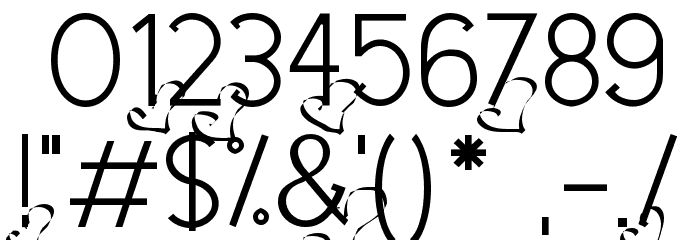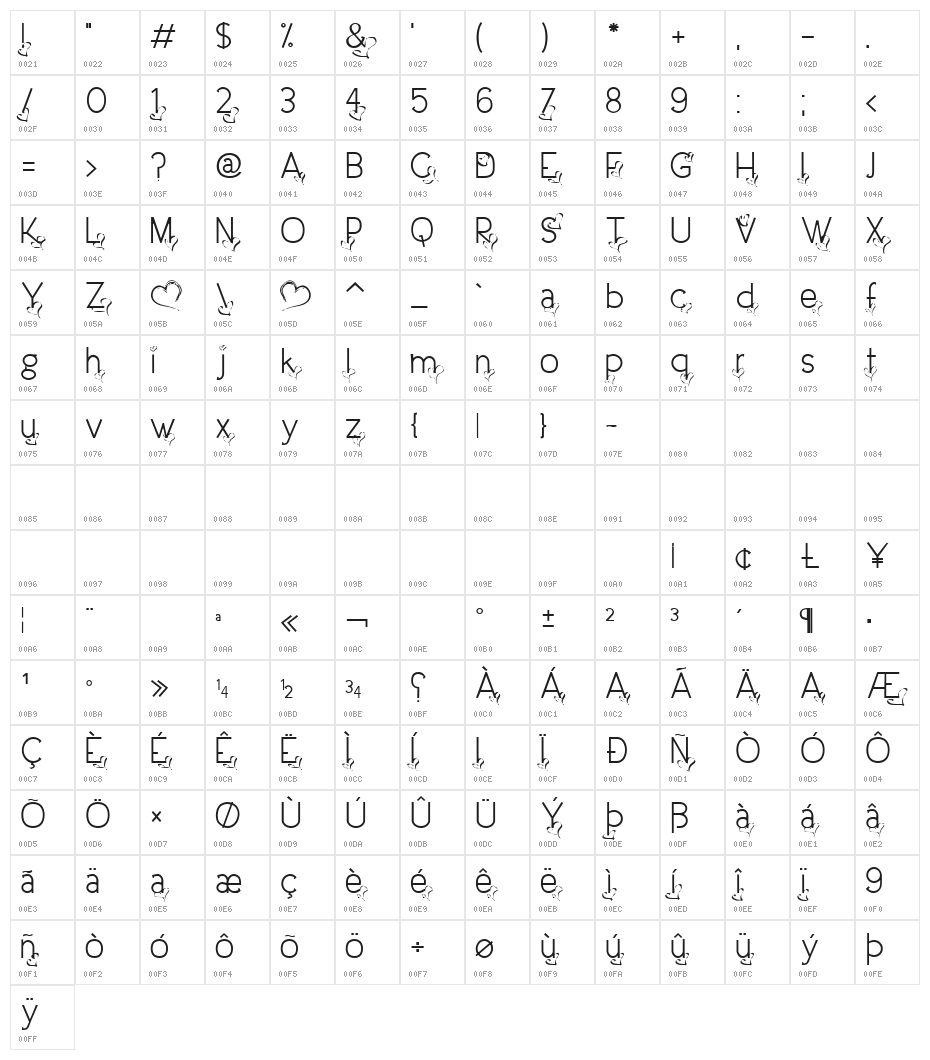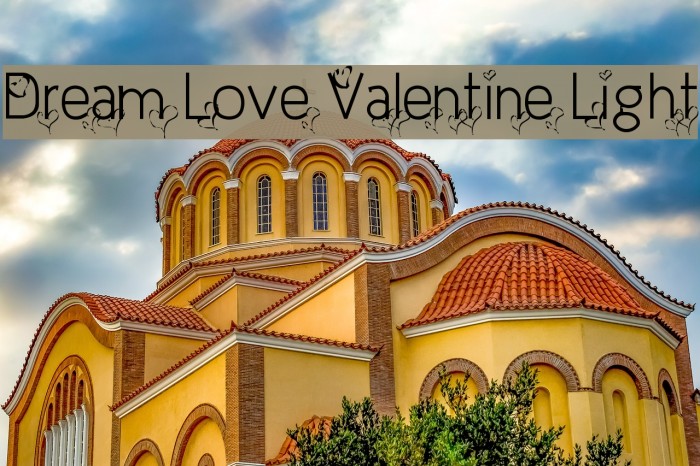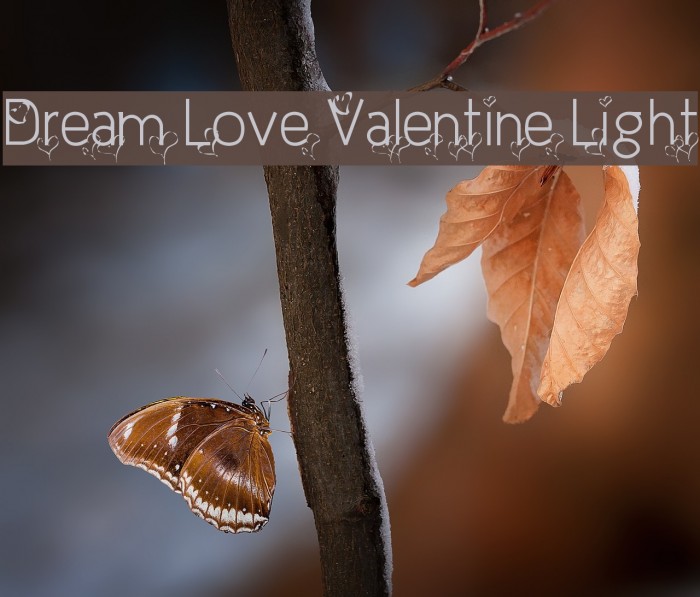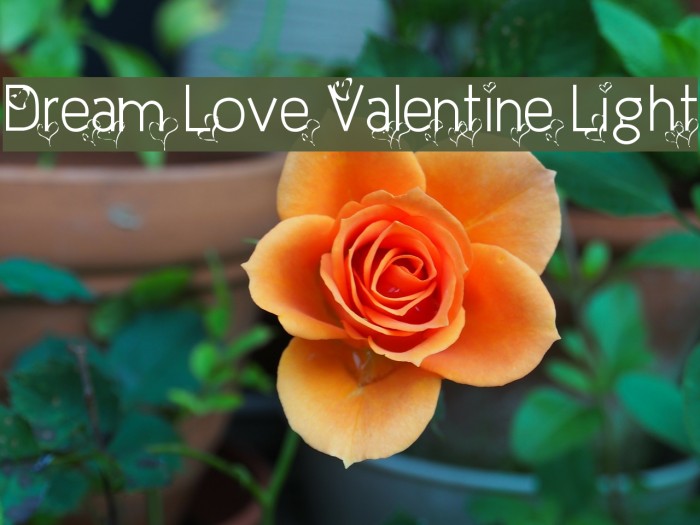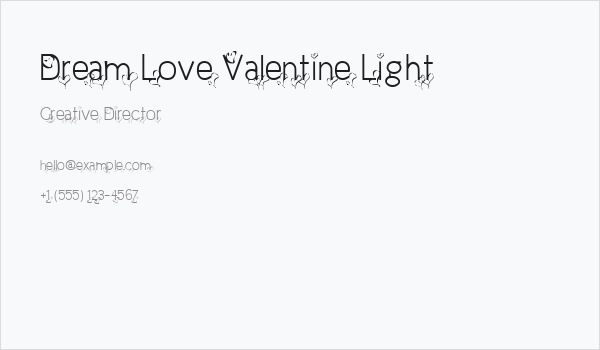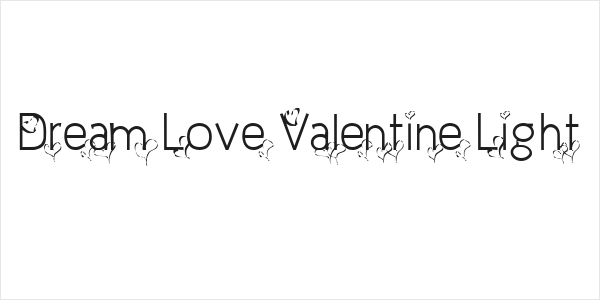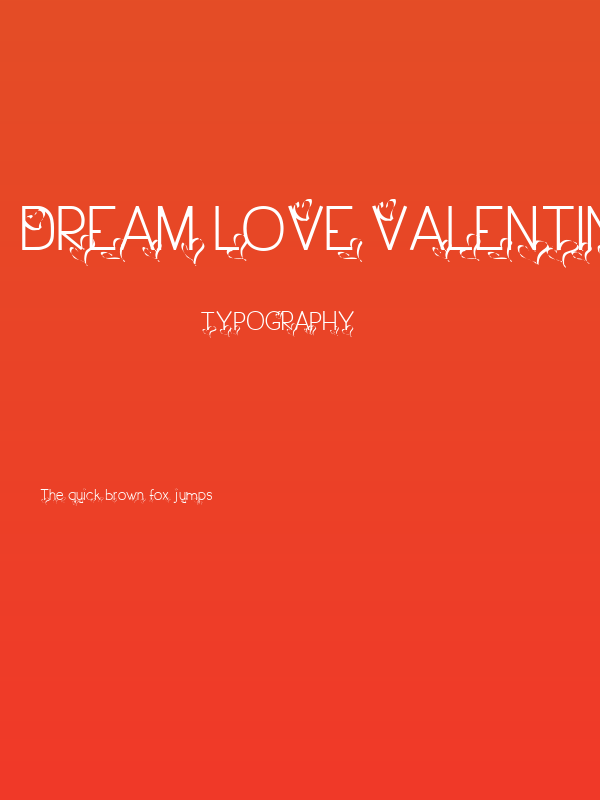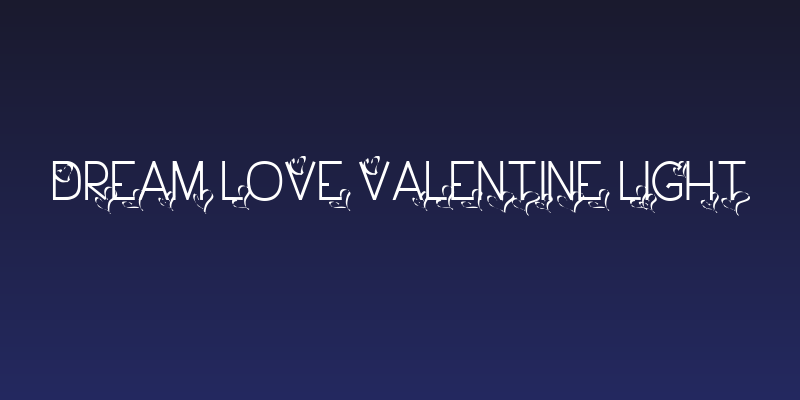
Dream Love Valentine Light Font
Dream Love Valentine Light Description
This font features a playful and romantic design, incorporating heart motifs into the structure of each character. The letters are primarily sans-serif with clean, straight lines, and the addition of hearts gives it a whimsical and decorative touch. The uppercase and lowercase letters maintain a consistent style, with the heart embellishments adding a unique flair. Numbers and special characters are also adorned with these heart elements, making the font ideal for themes of love and affection. The overall appearance is light and airy, with a modern yet charming aesthetic.
| Proposed Projects | Ideal for Valentine's Day cards, wedding invitations, love-themed posters, and playful branding. |